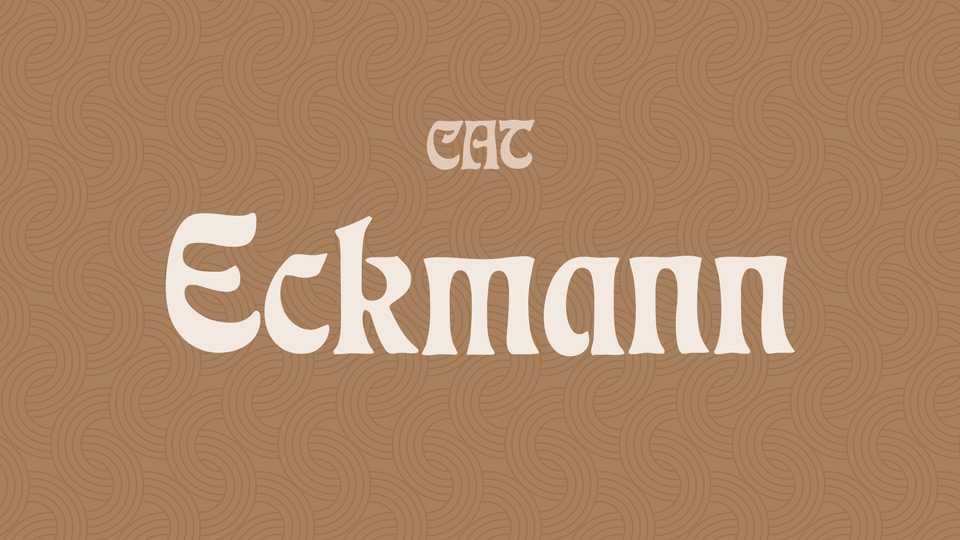
Download CAT Eckmann font, a flowing Art Nouveau typeface with a strong flavor of Fraktur based on the design by Otto Eckmann. CAT Eckmann is perfect for striking typographic effects and vintage artworks.